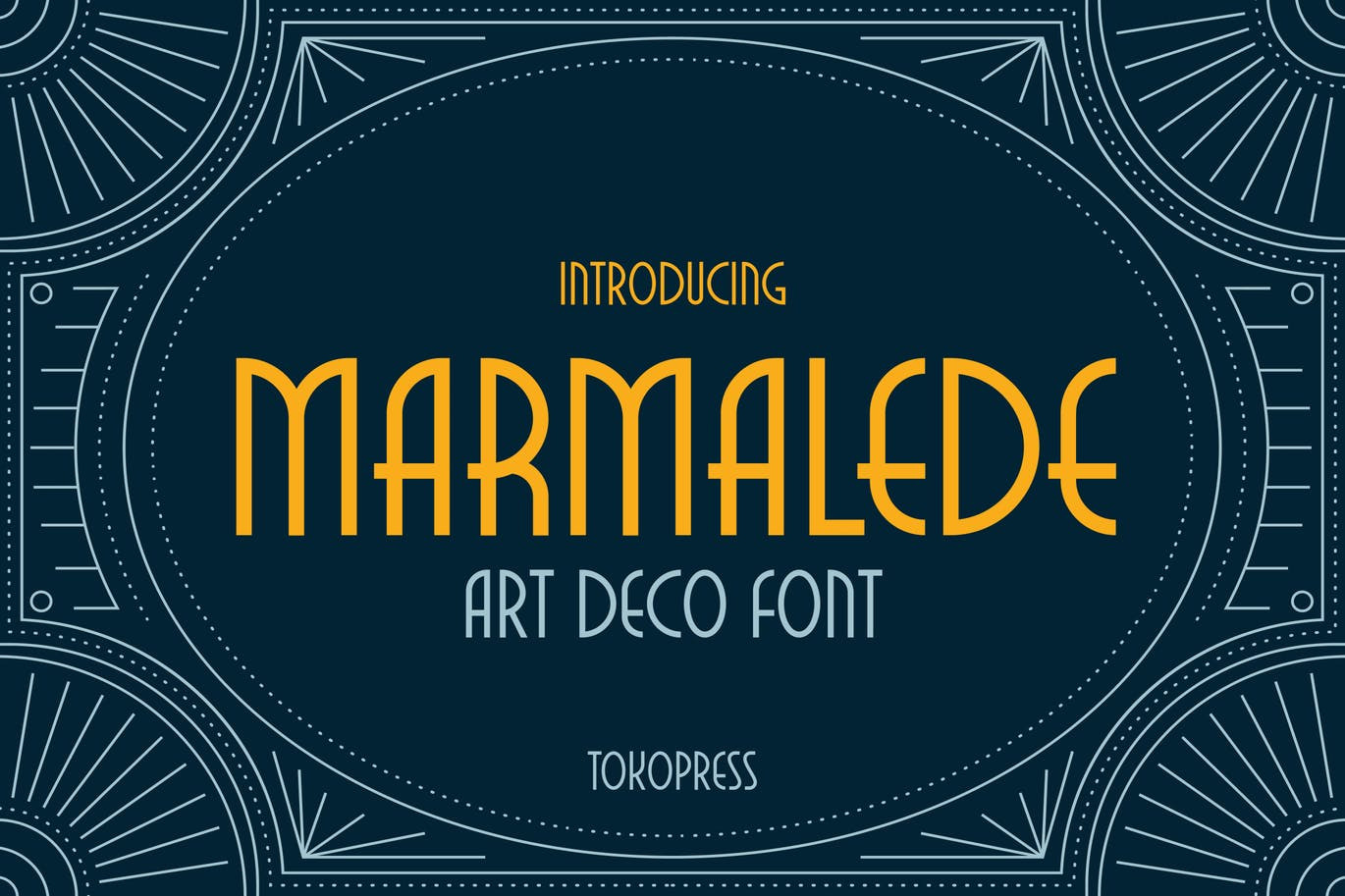
Marmalede - Classic font
Taking an art deco look, Marmalede is all about classic and elegance on the feel.
Suit perfectly for high-end market audiences, poster, movie title, classic restaurant/ cafe menu, magazine, youtube covers, youtube thumbnails, social media page covers and so on...